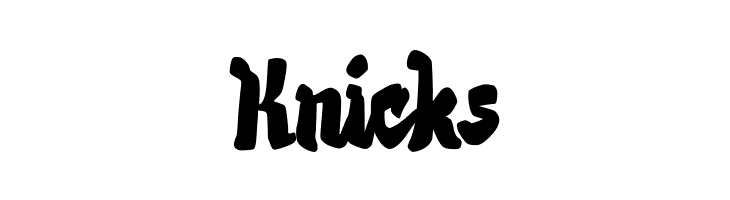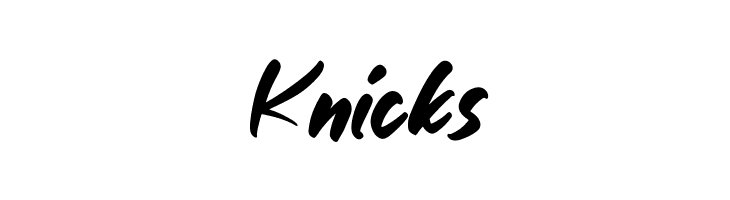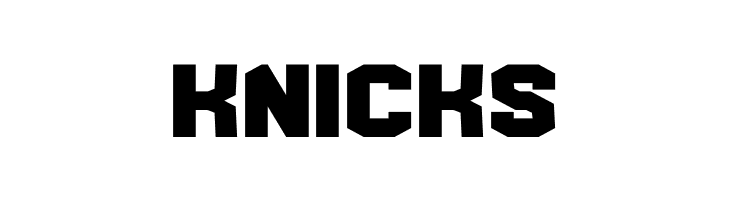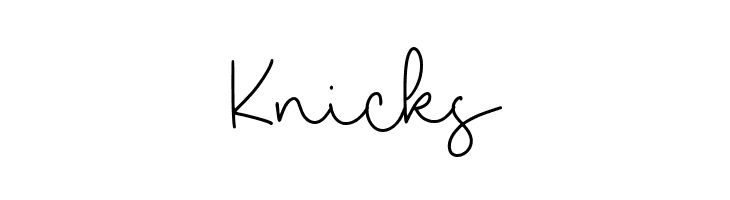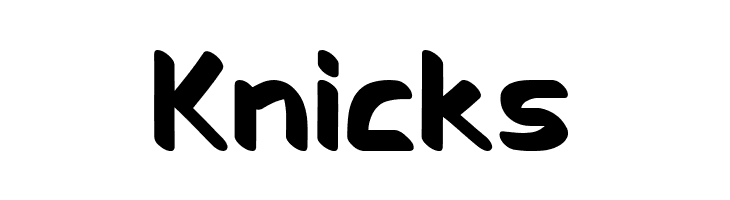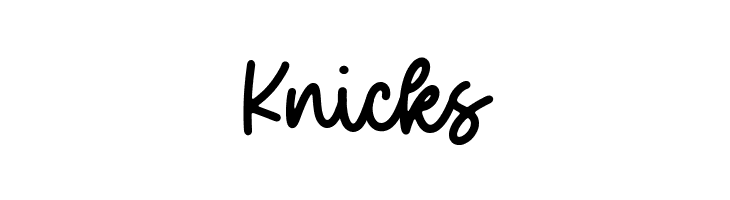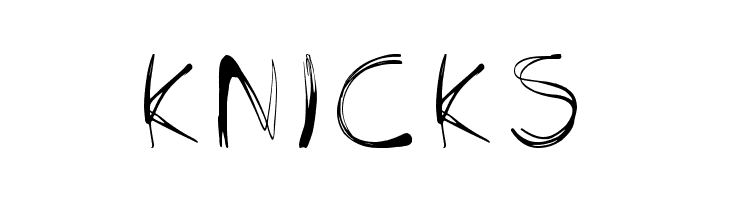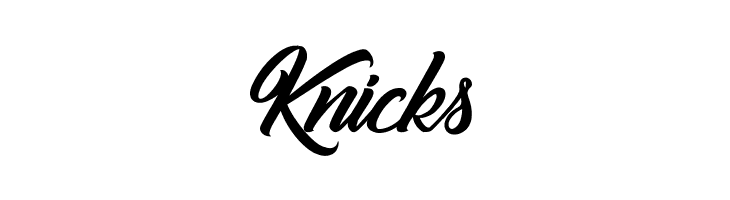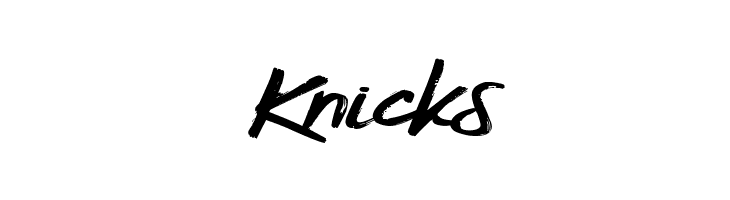
• glow-carro-danish-spiik
• Gojira Black
A bold, brush-style font with dynamic and expressive strokes.
• Gold Girls
A bold, brush-style font with dynamic and expressive strokes.
• Golden Volcano
A bold, handwritten-style font with dynamic, flowing strokes.
• Goldfinger Kingdom
An elegant, cursive script font with ornate, flowing characters.
• Goldie Blanket
A lively, expressive handwritten font with dynamic strokes and playful characters.
• Goldwind
A playful, casual handwritten font with fluid strokes and a personal touch.
• Golfmind
A playful, handwritten font with smooth, rounded edges and a friendly, casual style.
• Goma Octagon
A bold, geometric font with octagonal shapes and a modern, industrial feel.
• GONDES
A playful, bold font with rounded edges and a hand-drawn feel.